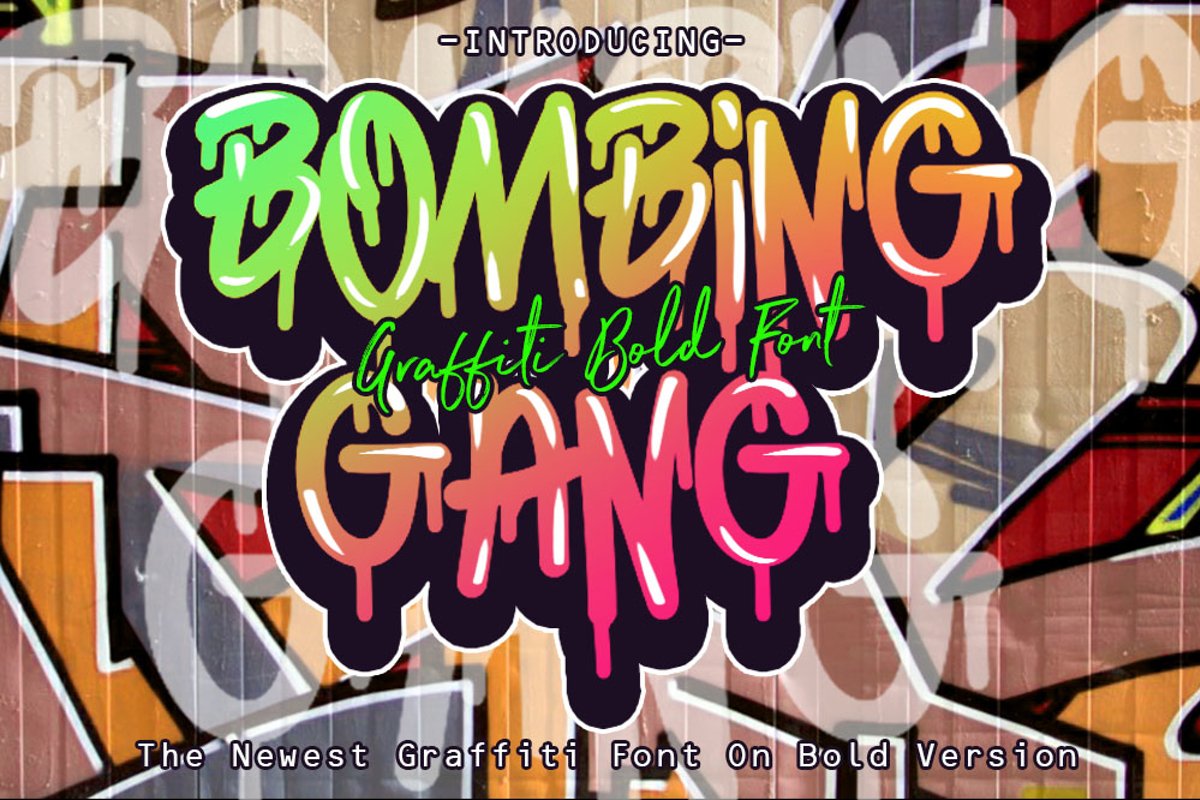
BOMBING GANG GRAFFITI BOLD FONT
Hello Everyone, introducing the latest bold graffiti font. Like my previous graffiti font, this font is also designed so that users can use it more easily and make graffiti designs easier. This font is available in format, OTF, TTF. and has features including, uppercase, lowcase, numeral & punctuations. all can make graffiti designs as they like with this font. Enjoy it. Thanks.
Perfect graffiti style font!